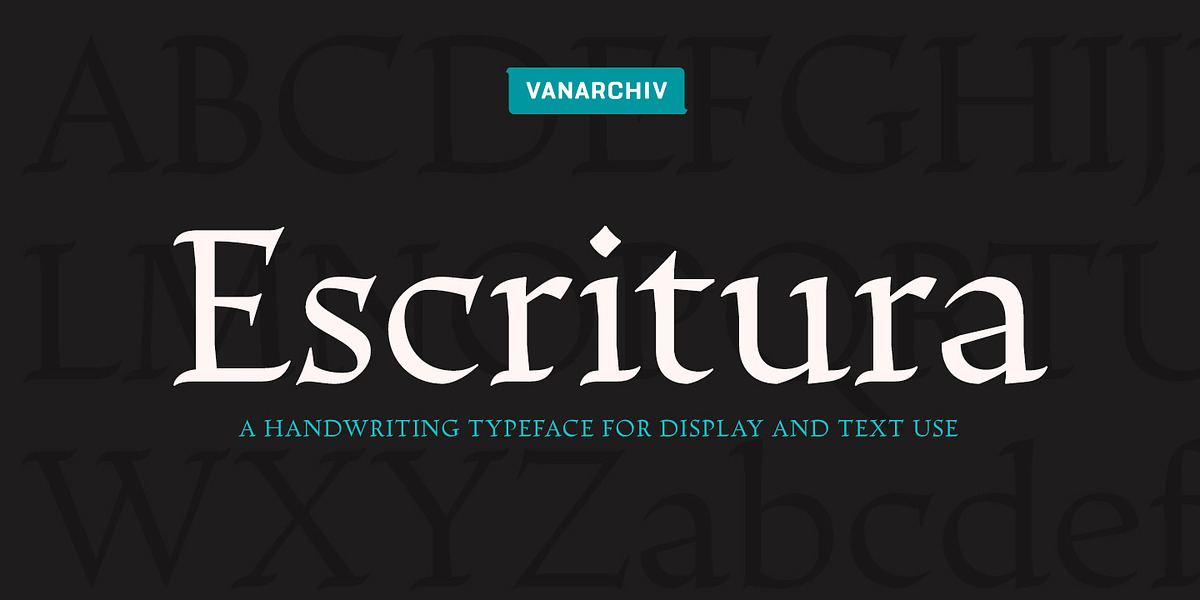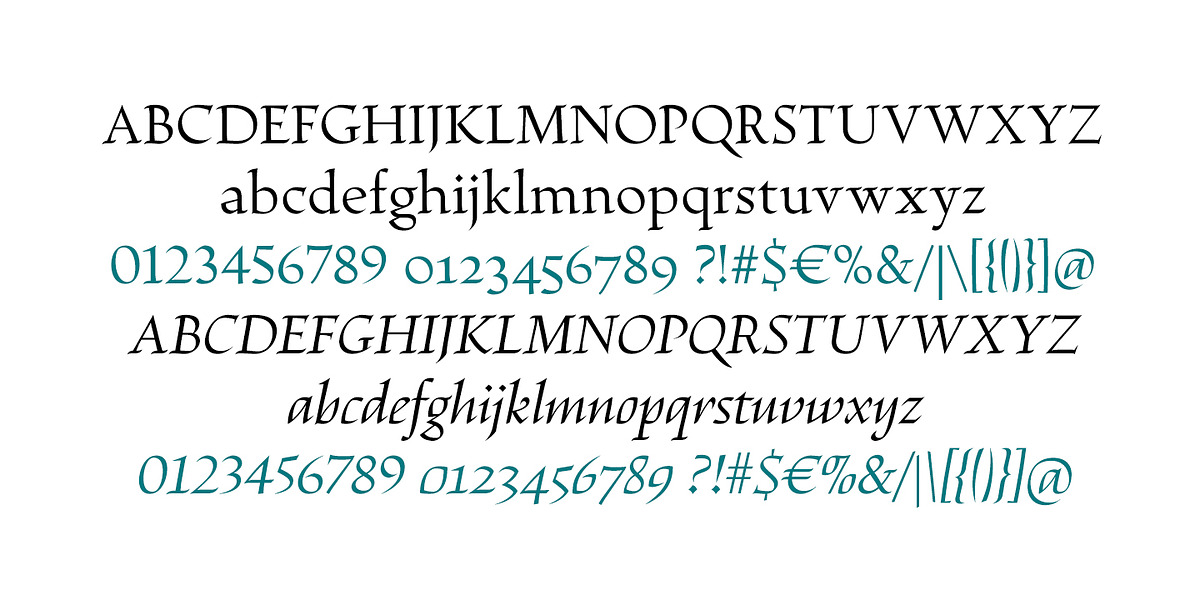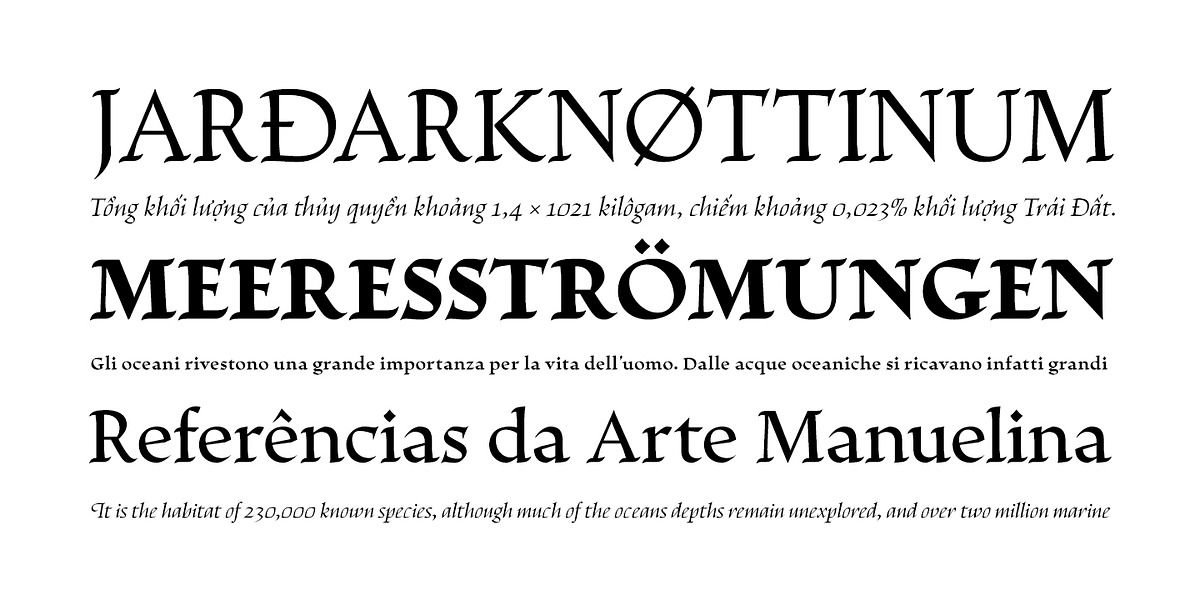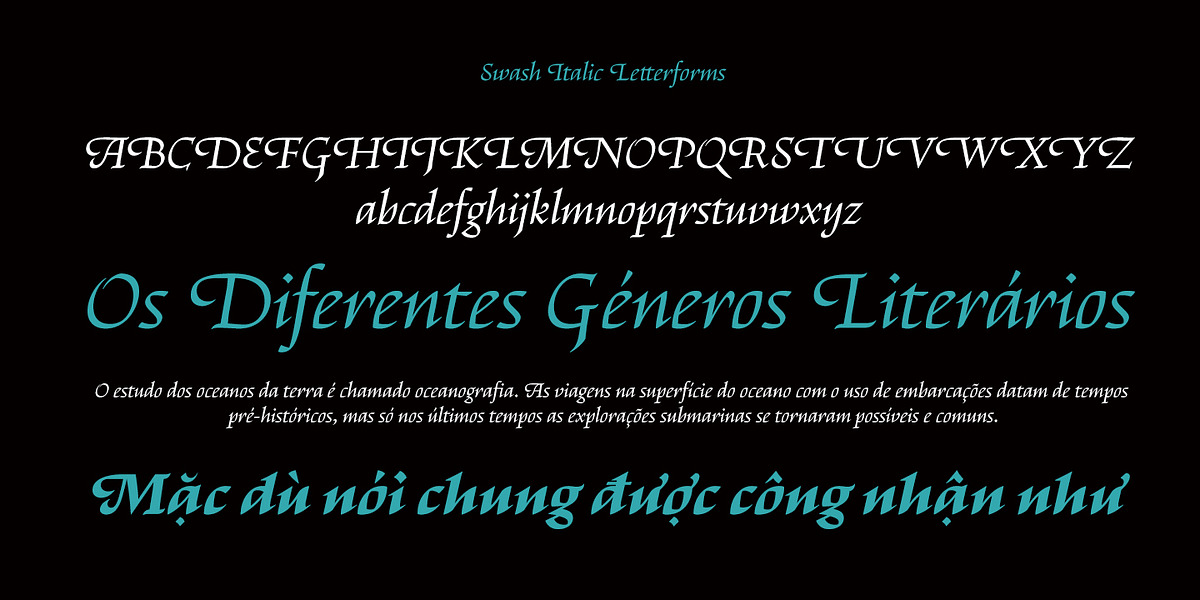
Escritura
Escritura is a serif typeface inspired by chancery handwriting from the Italian Renaissance. Its asymmetrical serifs and large aperture create a unique calligraphic feel. The font comes in both display and text variants, with the latter optimized for legibility at smaller sizes. }}